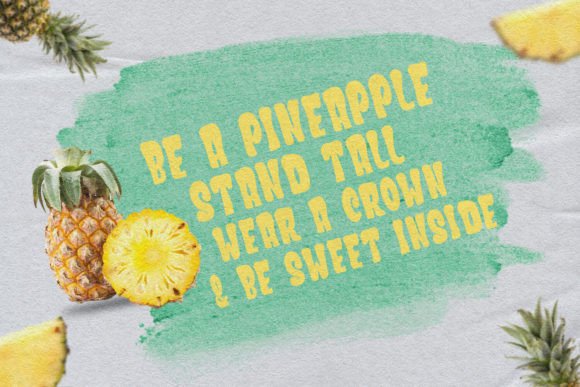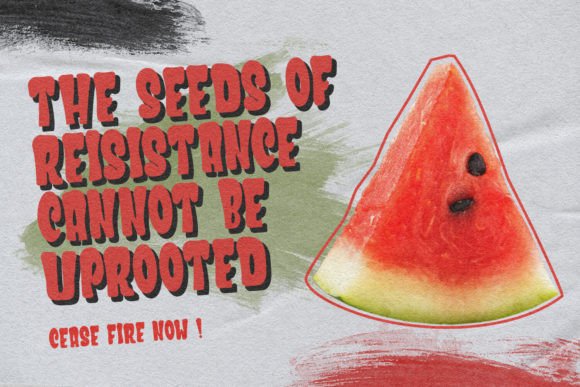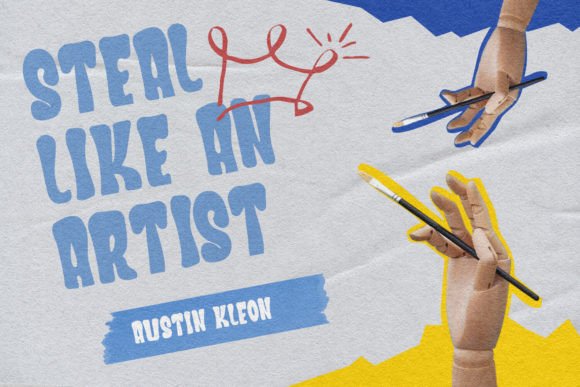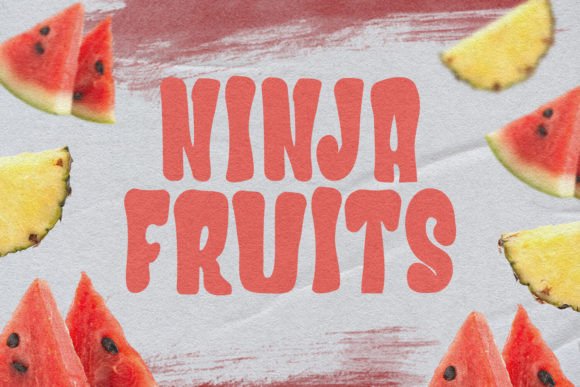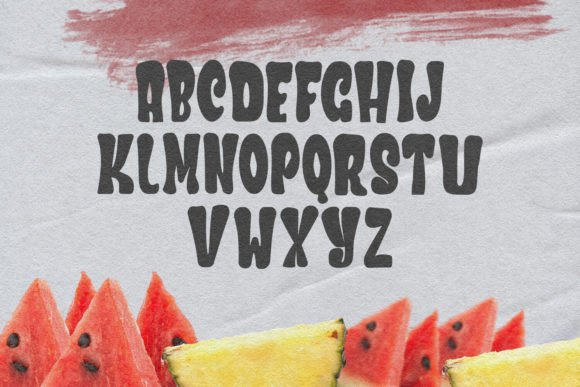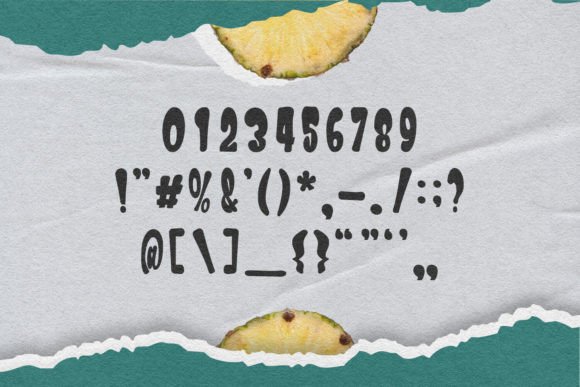
Introducing Enzhenia Font: The Ultimate Display Font for Modern Designs
In the world of typography, a good font can make all the difference in creating a stunning visual impact. For designers and crafters looking for a trendy and eye-catching display font, Enzhenia is the perfect choice. This bold and unique font is designed to make titles, logos, and posters stand out from the crowd, adding a touch of modern style and creativity to any text.
The Enzhenia Advantage: A Perfect Blend of Style and Creativity
Enzhenia font is a masterful blend of style and creativity, making it an ideal choice for designers who want to add a touch of sophistication to their work. Its bold and unique design ensures that any text looks modern and stylish, perfect for making a lasting impression on the audience. Whether you’re working on a logo, poster, or title, Enzhenia font is sure to elevate your design to the next level.
Key Features of Enzhenia Font
- Bold and Unique Design: Enzhenia font boasts a bold and unique design that is sure to grab attention and make your text stand out.
- Trendy and Modern Style: The font’s modern style ensures that your design looks fresh and up-to-date, perfect for brands and businesses looking to make a statement.
- Perfect for Display Text: Enzhenia font is specifically designed for display text, making it ideal for titles, logos, posters, and other applications where visual impact is crucial.
- Easy to Read: Despite its bold design, Enzhenia font is easy to read, ensuring that your message is conveyed clearly and effectively.
How to Use Enzhenia Font in Your Designs
Using Enzhenia font in your designs is easy and straightforward. Here are a few tips to get you started:
- Pair with Other Fonts: Enzhenia font pairs well with other fonts, making it easy to create a cohesive look for your design.
- Experiment with Colors: The font’s bold design makes it perfect for experimenting with different colors and gradients.
- Use for Headings and Titles: Enzhenia font is perfect for headings and titles, making it ideal for posters, flyers, and other display materials.
Benefits of Using Enzhenia Font
Using Enzhenia font in your designs offers a range of benefits, including:
- Increased Visual Impact: The font’s bold and unique design ensures that your text stands out and grabs attention.
- Improved Brand Recognition: By using a unique and stylish font, you can create a distinctive brand identity that sets you apart from the competition.
- Enhanced Creativity: Enzhenia font’s modern style and bold design make it perfect for creative projects and designs.
Who Can Benefit from Enzhenia Font?
Enzhenia font is perfect for a range of designers and crafters, including:
- Graphic Designers: Graphic designers can use Enzhenia font to create stunning visual effects and make their designs stand out.
- Logos and Branding Experts: Logos and branding experts can use the font to create unique and memorable brand identities.
- Poster and Flyer Designers: Poster and flyer designers can use Enzhenia font to create eye-catching and effective display materials.
In conclusion, Enzhenia font is a trendy and eye-catching display font that is perfect for making titles, logos, and posters stand out. Its bold and unique design combines style and creativity, making any text look modern and stylish. With its ease of use and range of benefits, Enzhenia font is an ideal choice for designers and crafters looking to elevate their designs to the next level.